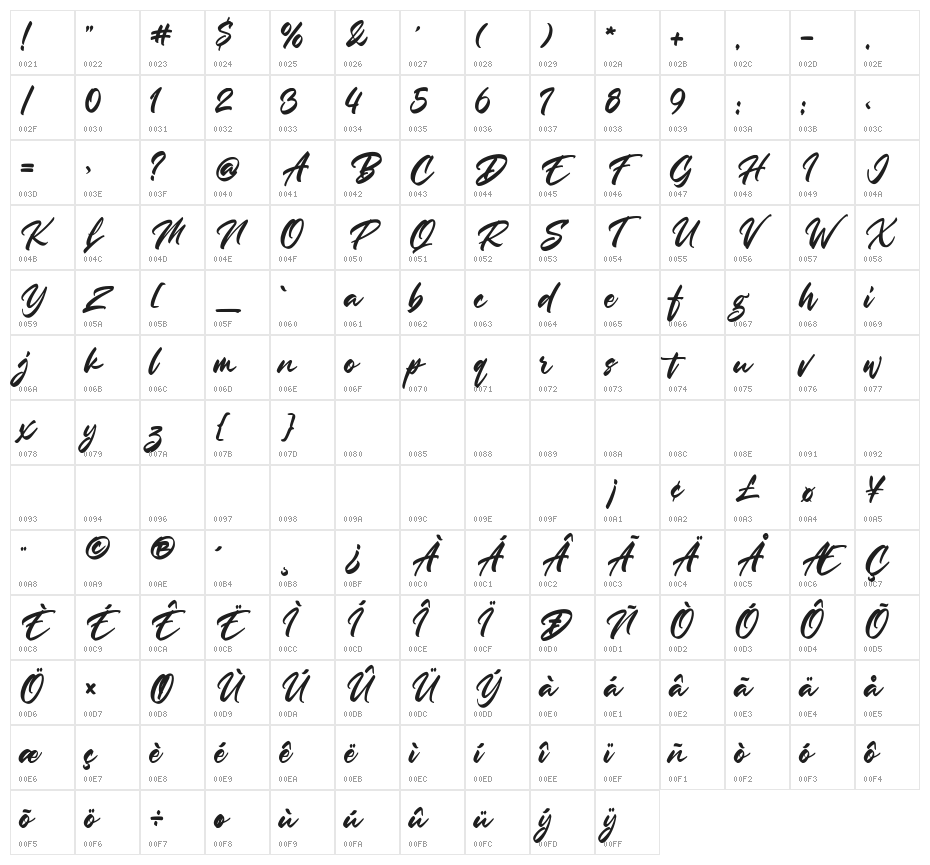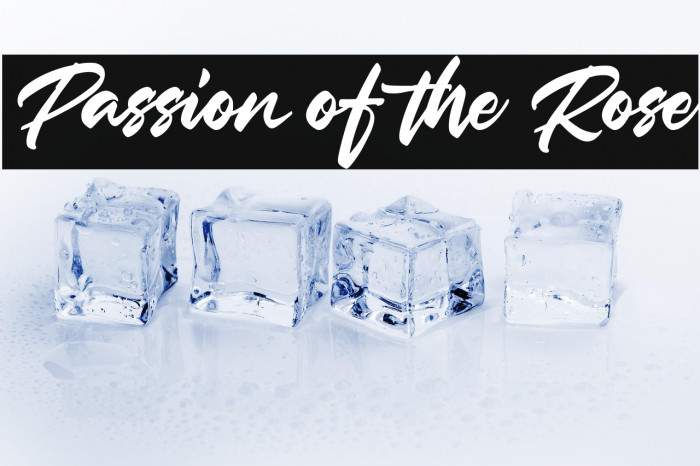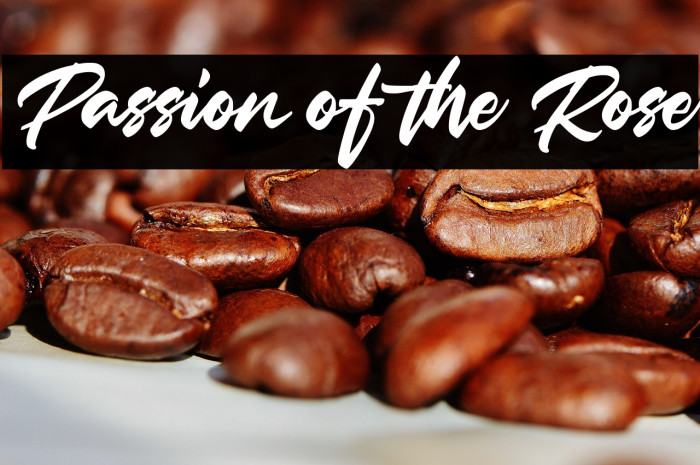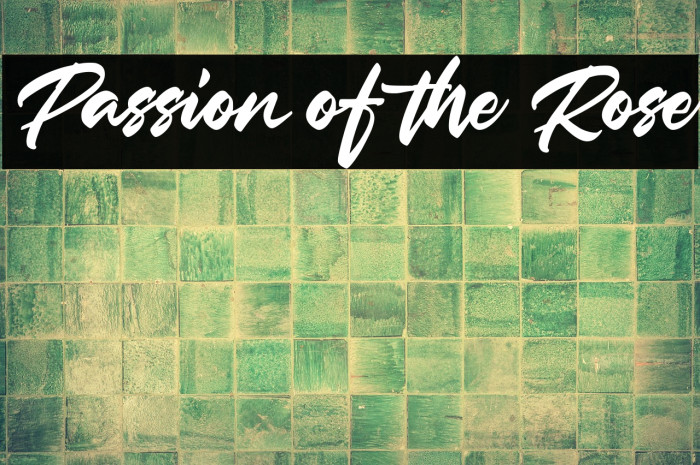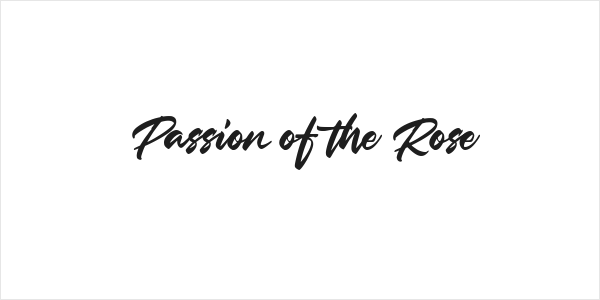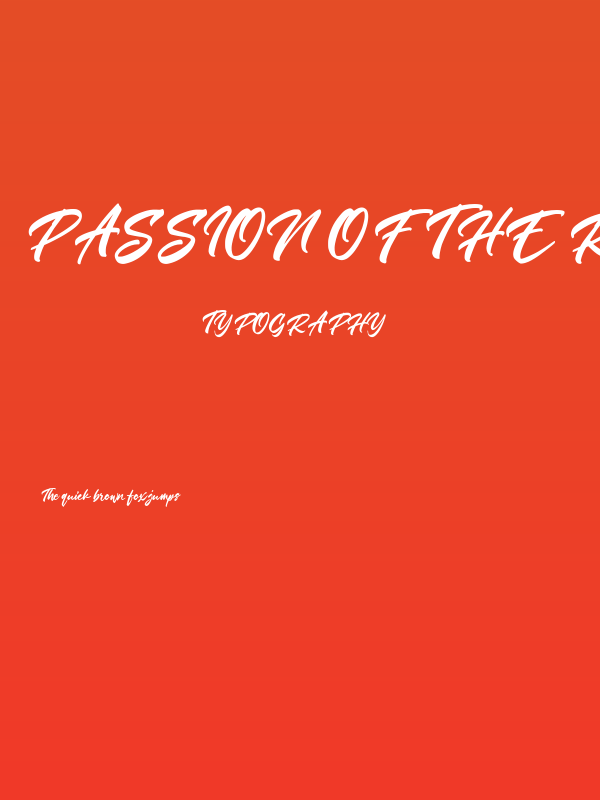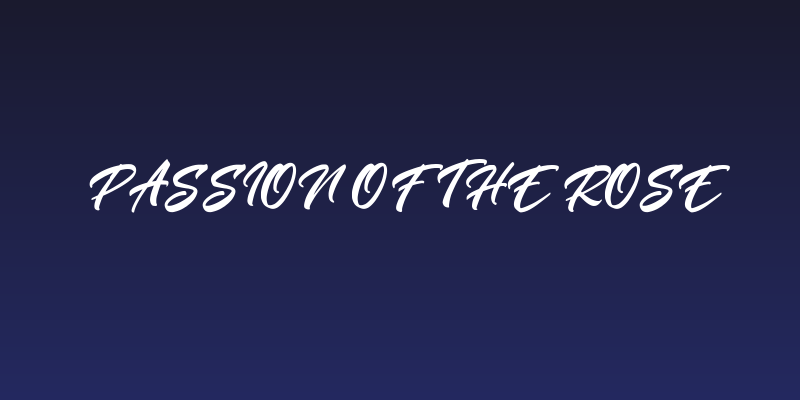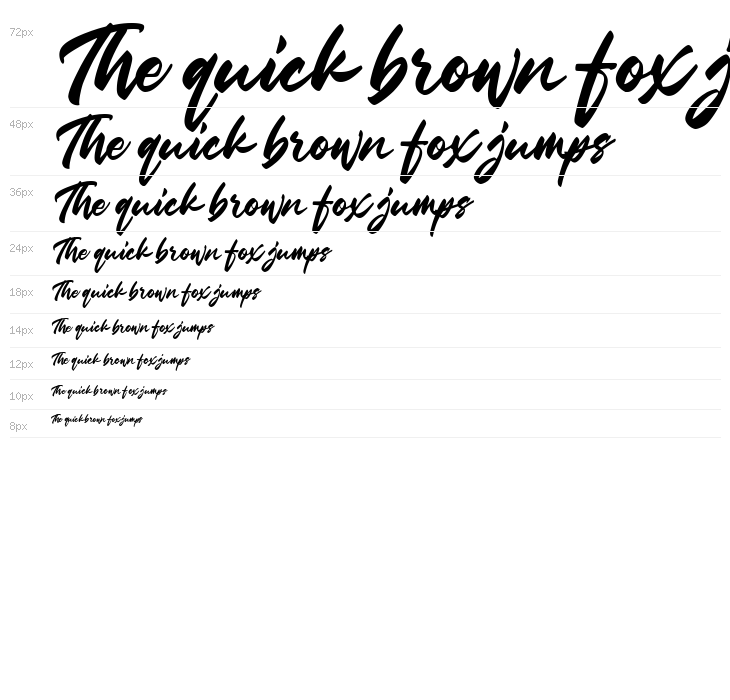
Passion of the Rose Font
Passion of the Rose Description
This font exudes a dynamic and expressive style, characterized by its bold, flowing script that mimics the fluidity of handwriting. The letters are connected with smooth, sweeping strokes, giving it a sense of motion and elegance. The uppercase letters are slightly larger and more pronounced, while the lowercase letters maintain a consistent flow, enhancing readability. The numerals and special characters are designed to match the overall cursive style, ensuring uniformity across all elements. This font is perfect for projects that require a personal touch or a sense of sophistication.